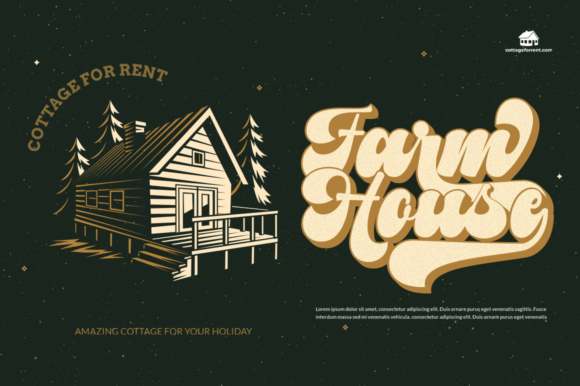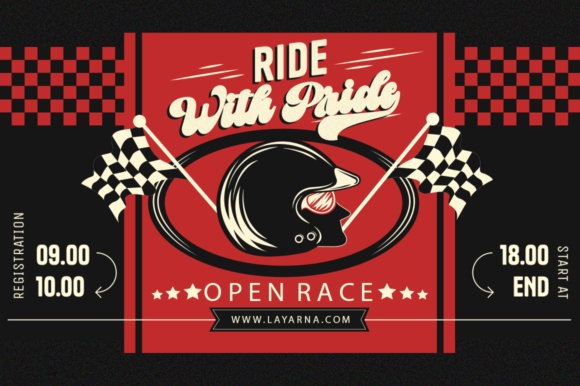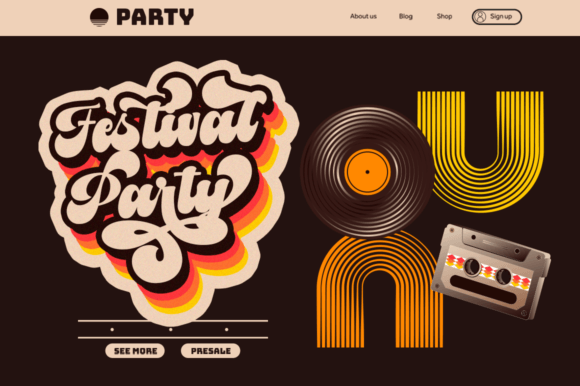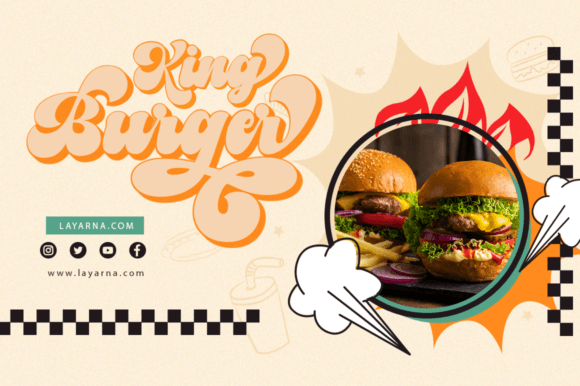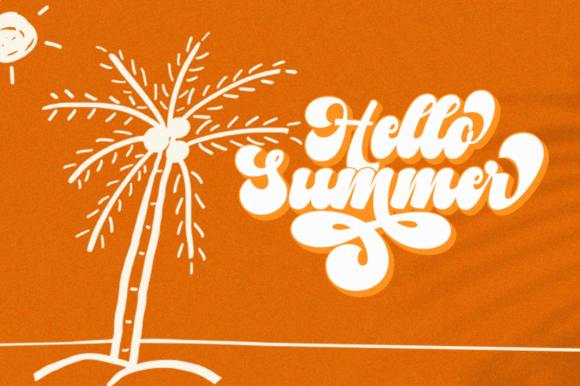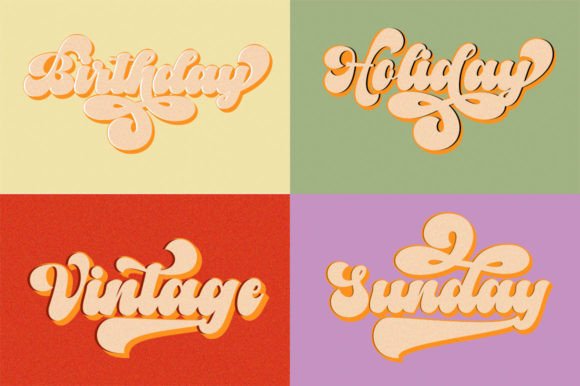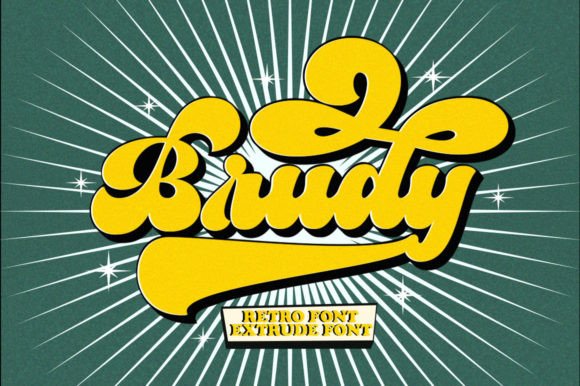
Introducing Brudy Font: The Ultimate Urban Retro Font for Designers and Crafters
Are you tired of using the same old fonts for your designs? Do you want to add a touch of vintage and retro flair to your projects? Look no further than Brudy Font, the urban retro font that’s taking the design world by storm. In this article, we’ll dive into the features and benefits of Brudy Font, and explore how it can elevate your designs to the next level.
What is Brudy Font?
Brudy Font is a carefully crafted urban retro font that draws inspiration from logotype lettering. It was created with the goal of helping designers and crafters like you create stunning logotypes and lettering styles for your brand or clients. With its unique blend of vintage and modern elements, Brudy Font is the perfect addition to any design project.
Key Features of Brudy Font
- PUA Encoded: Brudy Font is PUA (Private Use Area) encoded, which means you can access all the amazing glyphs and ligatures with ease. This feature makes it easy to use the font in your designs, even if you’re not a seasoned typography expert.
- Urban Retro Style: Brudy Font boasts a distinctive urban retro style that’s perfect for designers who want to add a touch of nostalgia to their work. The font’s logotype lettering style is reminiscent of classic signage and advertising from the past.
- Ligatures and Glyphs: Brudy Font comes with a range of ligatures and glyphs that can be used to add visual interest to your designs. From elegant swashes to quirky symbols, the font has everything you need to create unique and eye-catching typography.
Benefits of Using Brudy Font
So why should you choose Brudy Font for your design projects? Here are just a few benefits of using this amazing font:
- Instant Recognition: Brudy Font’s unique urban retro style is sure to grab attention and make your designs stand out from the crowd. Whether you’re working on a logo, brochure, or website, this font is guaranteed to leave a lasting impression.
- Versatility: Brudy Font is incredibly versatile, making it suitable for a wide range of design projects. From branding and advertising to packaging and signage, this font can be used in any context where you want to add a touch of vintage flair.
Who Can Benefit from Brudy Font?
Brudy Font is perfect for a wide range of designers and crafters, including:
- Graphic Designers: Whether you’re working on a logo, brochure, or website, Brudy Font is a great choice for any graphic design project.
- Signage and Advertising Specialists: If you specialize in signage and advertising, Brudy Font is a must-have for creating eye-catching and effective signage.
- Crafters and Scrapbookers: Brudy Font is also perfect for crafters and scrapbookers who want to add a touch of vintage flair to their projects.